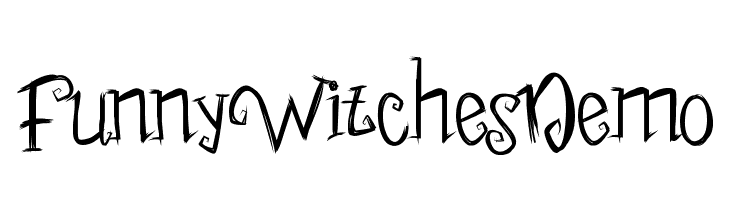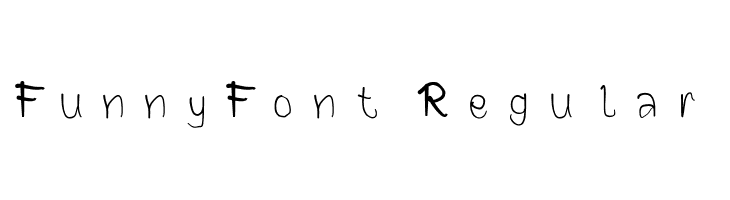
( Fonts by niyos )
A playful, bold, and rounded hand-drawn font with a whimsical style.
( Fonts by Tri Sakti Oktaviano )
A playful, bold font with rounded, bubbly characters perfect for informal designs.
( Fonts by VinType )
A bold, playful font with rounded, cartoonish characters.
( Fonts by www.dcoxy.com )
A decorative font made up of quirky cartoon monsters and robots.
A fun dingbat font of cartoon monster and toy illustrations.
( Fonts by Letterafa Studio )
A playful, bubbly font with bold, rounded characters and a cartoonish style.
A playful, bold font with thick, blocky letters and a whimsical, hand-drawn feel.
A whimsical, hand-drawn font with a magical, gothic flair.
( Fonts by Tri Sakti Oktaviano )
A playful, bold font with rounded, bubbly characters perfect for fun and approachable designs.
A humorous, hand-drawn cartoon character set with playful and exaggerated styles.